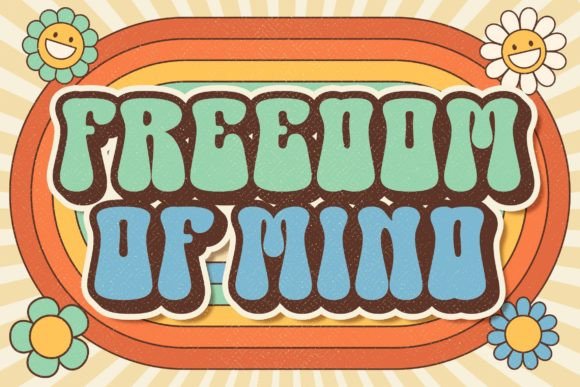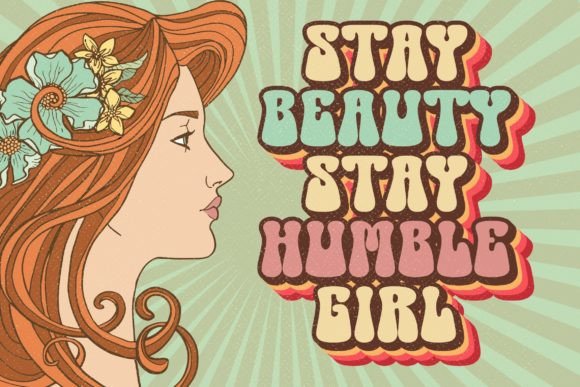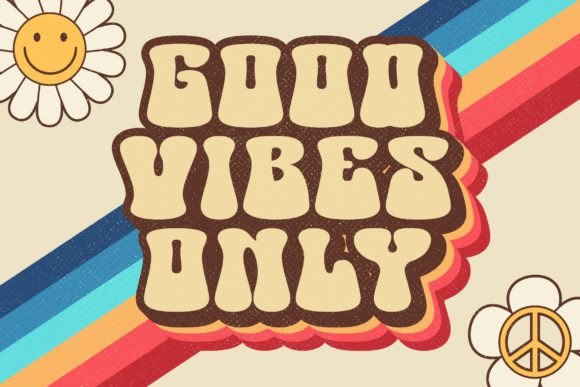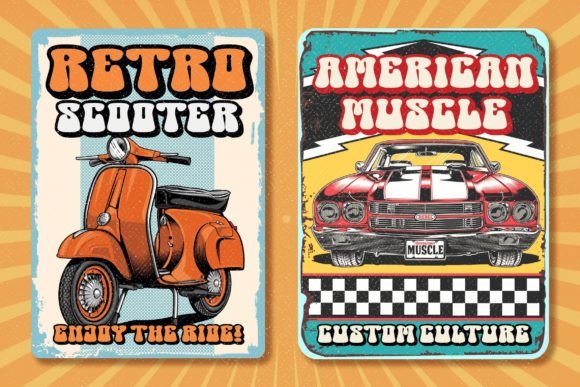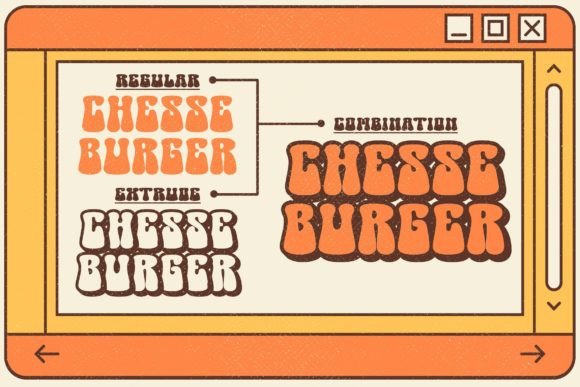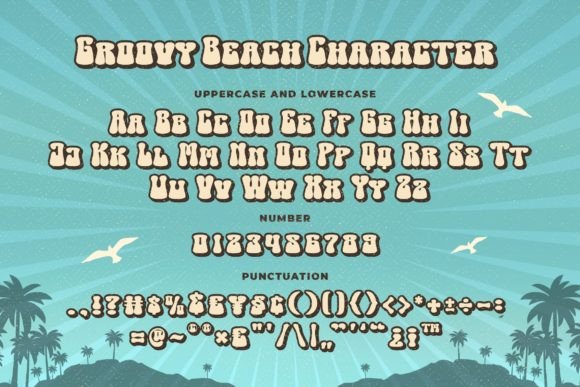
Groovy Beach Font: Elevate Your Designs with a Retro Twist
Are you on the hunt for a font that adds a dash of playfulness and nostalgia to your designs? Look no further than the Groovy Beach Font. This retro-inspired typeface is perfect for designers and crafters looking to infuse their work with a bold, eye-catching aesthetic. In this article, we’ll dive into the world of Groovy Beach Font, exploring its features, uses, and benefits.
What is Groovy Beach Font?
Groovy Beach is a retro groovy font that draws inspiration from the bold typography of the past. Its unique design makes it an excellent choice for projects that require a touch of nostalgia and whimsy. With its bold lines and playful vibe, Groovy Beach Font is sure to make your designs stand out from the crowd.
Key Features of Groovy Beach Font
- Retro Inspiration: Groovy Beach Font is inspired by the iconic typography of the 60s and 70s, making it perfect for designs that require a vintage flair.
- Bold and Playful: This font is designed to make a statement, with bold lines and a playful vibe that adds energy to any design.
- Versatile: Groovy Beach Font is suitable for a wide range of applications, from book covers and posters to packaging and merchandise.
Uses of Groovy Beach Font
Groovy Beach Font is an incredibly versatile typeface that can be used in various design projects. Here are some ideas to get you started:
- Book Covers: Add a touch of nostalgia to your book covers with Groovy Beach Font, making them stand out on bookshelves and online.
- Posters and Flyers: Create eye-catching posters and flyers with Groovy Beach Font, perfect for promoting events, products, or services.
- Packaging: Elevate your product packaging with Groovy Beach Font, adding a playful and retro touch to your brand’s identity.
- Merchandise: Design unique and stylish merchandise, such as t-shirts, stickers, and tote bags, with Groovy Beach Font.
- Logotype: Use Groovy Beach Font to create a bold and memorable logotype for your brand, setting you apart from the competition.
Benefits of Using Groovy Beach Font
So, why choose Groovy Beach Font for your design projects? Here are some benefits to consider:
- Unique Aesthetic: Groovy Beach Font offers a distinctive, retro-inspired aesthetic that sets your designs apart from the crowd.
- Easy to Read: Despite its bold and playful design, Groovy Beach Font remains easy to read, making it perfect for body text and headings.
- Customizable: Experiment with different colors, sizes, and styles to make Groovy Beach Font your own and tailor it to your design needs.
Tips for Using Groovy Beach Font
To get the most out of Groovy Beach Font, here are some tips to keep in mind:
- Pair with Neutral Backgrounds: Balance out the boldness of Groovy Beach Font by pairing it with neutral backgrounds, such as white, beige, or pastel colors.
- Experiment with Colors: Try out different color combinations to find the perfect match for your design, from bright and bold to soft and pastel.
- Use in Moderation: While Groovy Beach Font is perfect for headlines and titles, use it in moderation for body text to avoid overwhelming the reader.
Groovy Beach Font is a versatile and eye-catching typeface that’s perfect for designers and crafters looking to add a touch of nostalgia and playfulness to their work. With its bold lines, playful vibe, and retro inspiration, this font is sure to elevate your designs and make them stand out from the crowd. Whether you’re working on book covers, posters, packaging, or merchandise, Groovy Beach Font is an excellent choice for any project that requires a unique and attention-grabbing aesthetic.